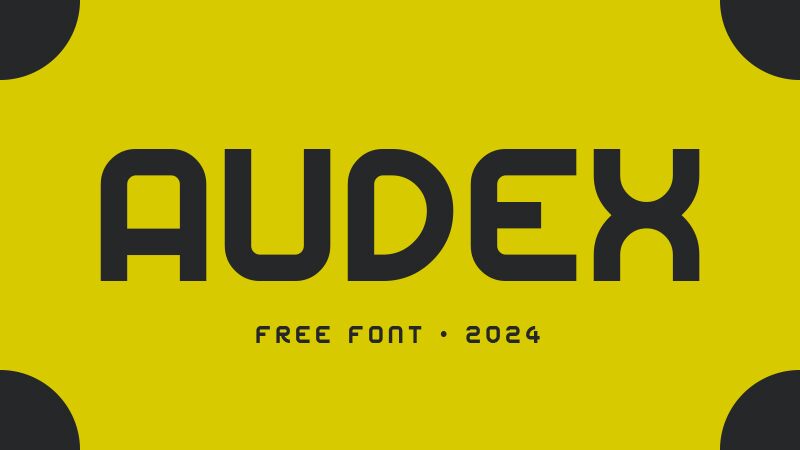
Audex
Audex font by GGBotNet is a free techno display font that features an unusual style. It has to be one of the best fonts to give your next design a futuristic look. The lowercase/uppercase capital letter shapes are perfect and really romantic with clean lines and structured character forms.
Use Audex in videos, movies, posters, signs, t-shirt designs or covers. This futuristic typeface will also look great on branding projects such as logos and packaging designs.